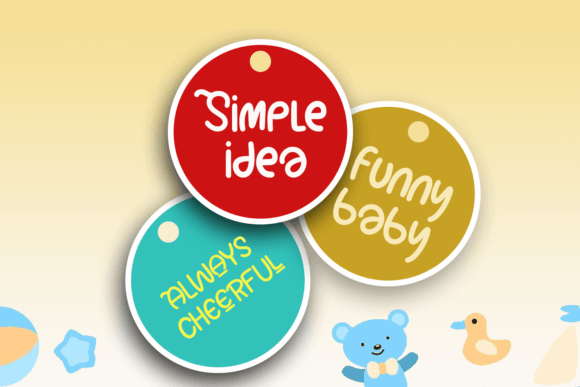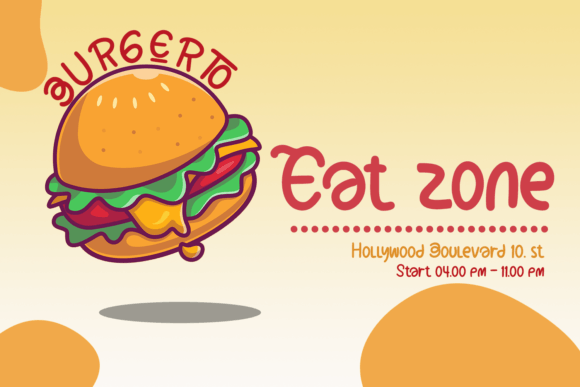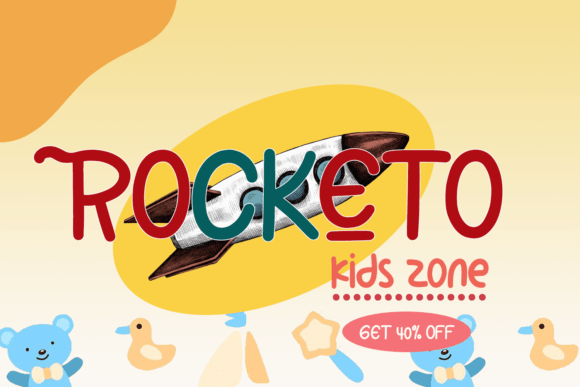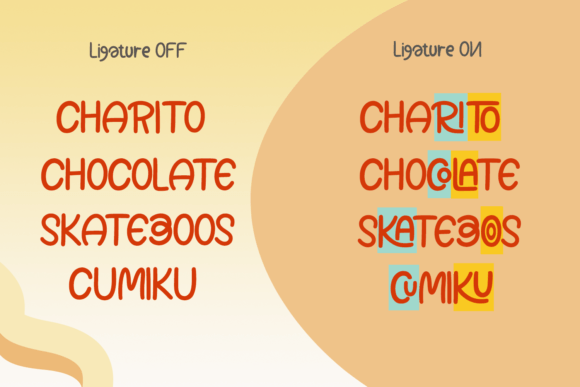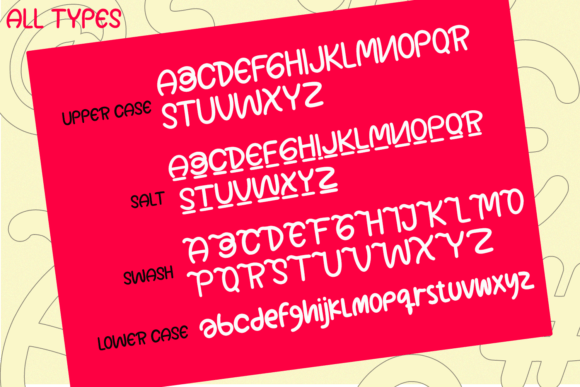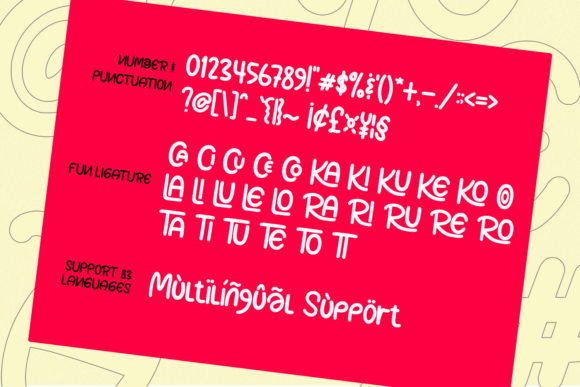
Introducing Codeplay Font: Unleash Your Creativity with a Handwritten Original
Are you on the hunt for a font that adds a dash of fun and personality to your designs? Look no further than Codeplay Font, a unique handwritten font that’s perfect for crafters, designers, and artists. With its childlike playfulness and original charm, Codeplay is ideal for a wide range of creative projects, from SVG designs and pottery to shirts, hats, tote bags, wall art, and interior prints.
The Perfect Font for Creative Projects
Codeplay Font is more than just a font – it’s a tool for self-expression and creativity. Its handwritten design gives your projects a personal touch, making them stand out from the crowd. Whether you’re a professional designer or a crafter looking for a unique look, Codeplay Font is the perfect choice. Its versatility and playfulness make it easy to use and fun to work with.
Key Features of Codeplay Font
- Handwritten Originality: Codeplay Font is a one-of-a-kind handwritten font that adds a touch of personality to your designs.
- Fun Characters: With its playful and childlike design, Codeplay Font is perfect for projects that require a dash of fun and whimsy.
- SVG Compatible: Codeplay Font is suitable for SVG designs, making it easy to use with your favorite cutting machines and design software.
- Versatile: From pottery and shirts to wall art and interior prints, Codeplay Font can be used on a wide range of materials and projects.
Ideas for Using Codeplay Font
Codeplay Font is perfect for a variety of creative projects. Here are some ideas to get you started:
- SVG Designs: Use Codeplay Font to create custom SVG files for cutting machines, perfect for iron-on designs, vinyl cutting, and more.
- Pottery and Ceramics: Add a personal touch to your pottery and ceramics with Codeplay Font’s playful and childlike design.
- T-Shirts and Apparel: Create unique and eye-catching designs for shirts, hats, and other apparel with Codeplay Font.
- Wall Art and Interior Prints: Use Codeplay Font to create beautiful wall art and interior prints that add a touch of personality to any room.
- Tote Bags and Fabric: Add a playful touch to tote bags, fabric, and other textile projects with Codeplay Font.
Why Choose Codeplay Font?
With so many fonts available, why choose Codeplay Font? Here are just a few reasons:
- Unique Design: Codeplay Font is a one-of-a-kind handwritten font that adds a touch of personality to your designs.
- Versatile: Codeplay Font can be used on a wide range of materials and projects, making it a great addition to any design library.
Get Creative with Codeplay Font
Whether you’re a professional designer or a crafter looking for a new font to add to your collection, Codeplay Font is a great choice. Its versatility, playfulness, and originality make it perfect for a wide range of creative projects. So why wait? Get creative with Codeplay Font and see what amazing designs you can come up with!